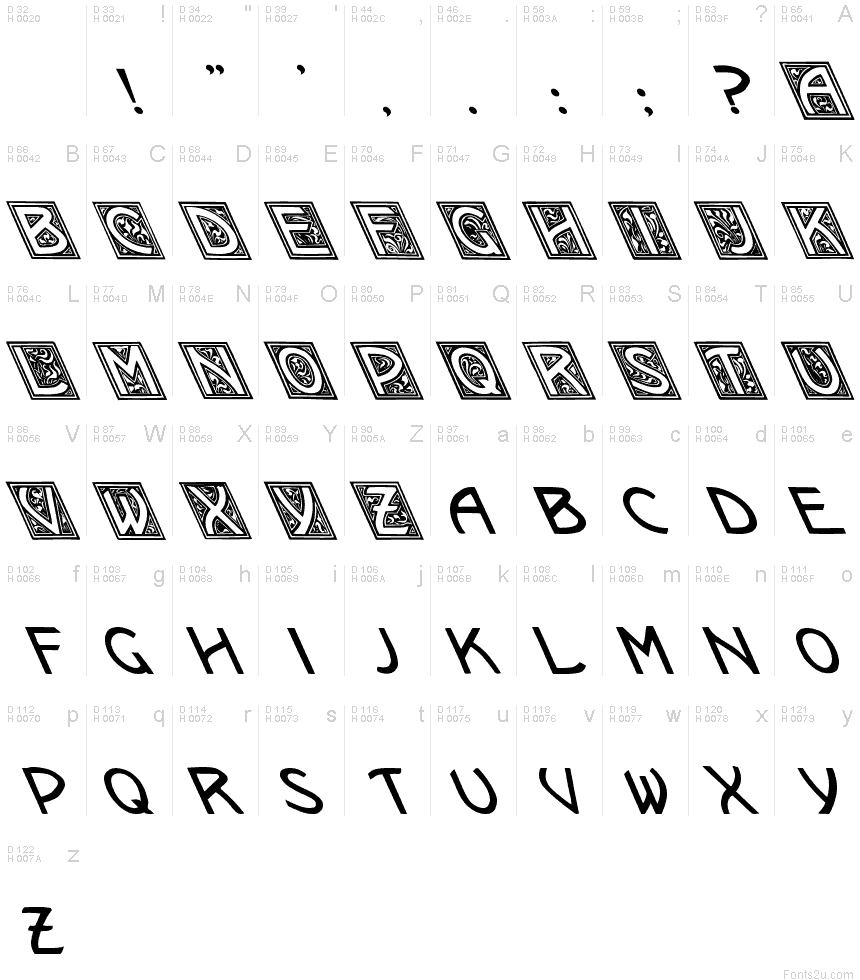
Kramer vs. Leftie, designed by D. Rakowski in 1991, is a free angular display font with a strong Gothic edge. Its sharply cut forms mix long diagonals, broad curves, and abrupt changes in stroke width for a tense, hand-drawn silhouette.
Angular line art and fractured patterns can echo the lettering in music posters, game graphics, and album packaging. Its unusual shapes also suit alternative fashion branding, where the type can become part of an illustrated emblem. Posters are its strongest setting because the sweeping forms read like custom lettering.